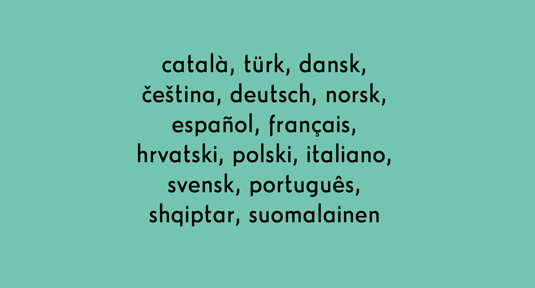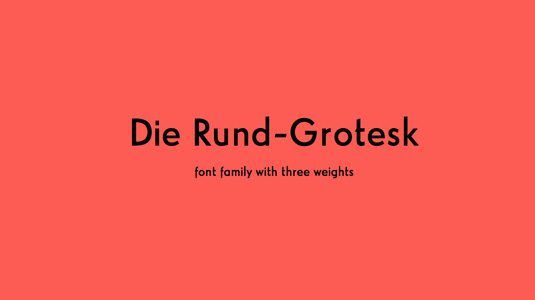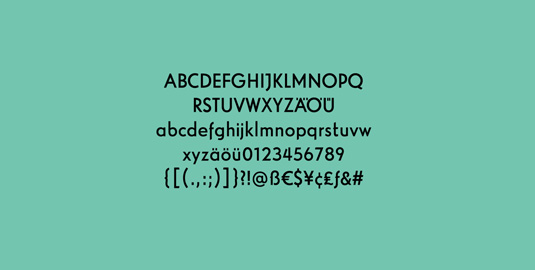
Font of the day: Rund-Grotesk
Rund-Grotesk by Frédéric Krauser
Today's font of choice, Rund-Grotesk, was created by designer Frédéric Krauser. He comments on his design: "I started the font during my bachelor thesis at Bauhaus-University in Weimar. The design is based on a former German letterpress font from the late 1930s.
"I had the chance to visit some specimen archives in Leipzig an Offenbach to get some original prints. Based on them I started building the Rund-Grotesk. With its old styles it seemed perfectly fitting to our time."